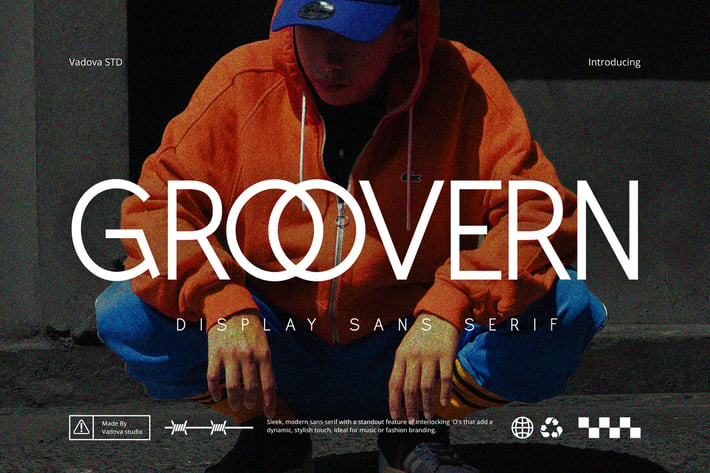
Groovern Sans Serif Font
Groovern Sans Serif Font is a sleek and modern sans-serif display font with a dynamic and stylish energy. Its standout feature is the unique interlocking of the letter "O," adding a distinctive and memorable touch. The letterform structure is a clean sans-serif with a contemporary feel. This font is particularly well-suited for music or fashion branding aiming for a stylish edge, social media graphics needing a dynamic and eye-catching look, and packaging designs seeking a modern and unique appeal. Its sleekness also makes it suitable for website headers and editorial designs wanting a touch of modern flair.
Groovern Sans Serif Font Suitable for Music branding, fashion logos, dynamic social media posts, modern packaging design, stylish website headers, unique editorial layouts, contemporary advertising, eye-catching posters, urban apparel branding, modern tech startups, innovative app interfaces, creative agency branding, impactful promotional materials, bold event graphics, distinctive album artwork, stylish merchandise design, modern art exhibitions, youth-focused branding, energetic sports promotions, and memorable marketing campaigns.